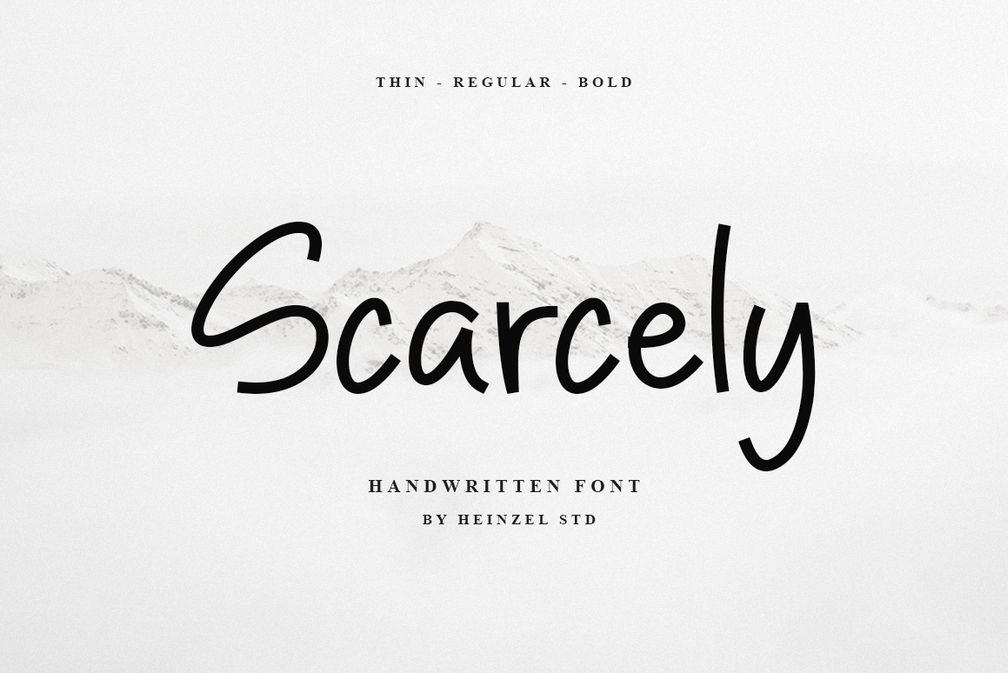
Scarcely Handwritten Font
Scarcely is a stylish handwritten font designed by Heinzel Std, offering a natural and elegant handwritten look. With **three weights—Thin, Regular, and Bold—**this font gives you flexibility to create unique and expressive designs. Its smooth strokes and clean curves make it ideal for a wide range of creative projects, including:
Branding & Logos
Wedding Invitations & Stationery
Social Media Posts
Posters & Flyers
Product Packaging
Whether you’re aiming for a minimalist design or a bold handwritten statement, Scarcely adapts beautifully to your creative needs. Its organic style adds a personal, authentic touch, making your projects stand out effortlessly.
Font Features:
3 Weights: Thin, Regular, Bold
Uppercase & Lowercase
Numbers & Punctuation
Multilingual Support
Bring warmth and personality to your designs with Scarcely — a handwritten font that blends simplicity with charm.